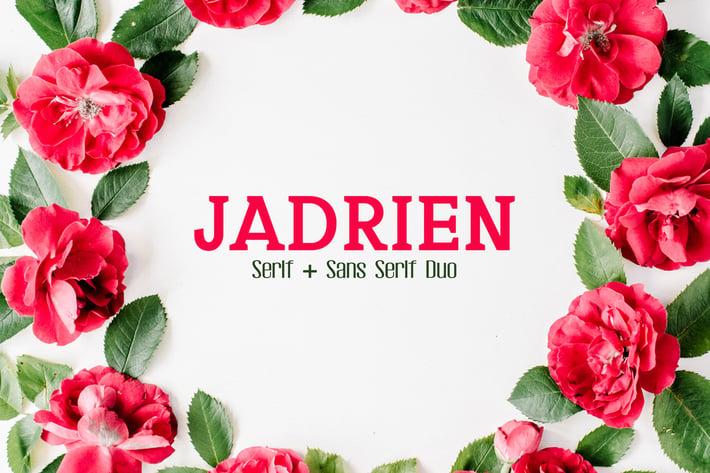
Jadrien Duo Font Pack
Jadrien Serif + Sans Serif Duo Font Family Pack is an eye catching typeface, let you create more impression with your design. This will look gorgeous on logos, titles, web layouts, branding, wedding invites, business cards, and quotes, t-shirt, branding & logo projects, merchandise, social media posts, product packaging, and more.
Included Features:
- Font Weight: Regular, Thin and Light
Evina Font Features:
- Uppercase Multilingual Letters
- Lowercase Multilingual Letters
- Non English Characters ( Latin Supplement + Latin Extended A)
Included Features:
- Font Weight: Regular
Jadrien Font Features:
- Uppercase Multilingual Letters
- Lowercase Multilingual Letters
- Non English Characters ( Latin Supplement + Latin Extended A)